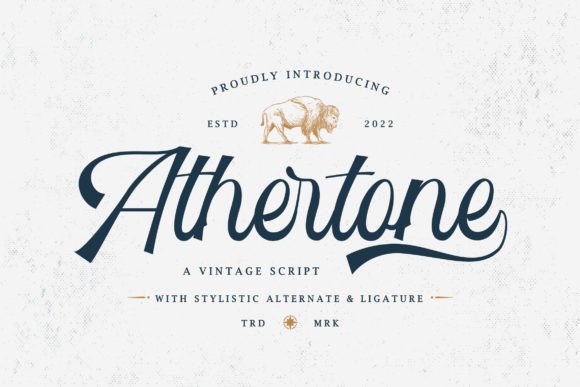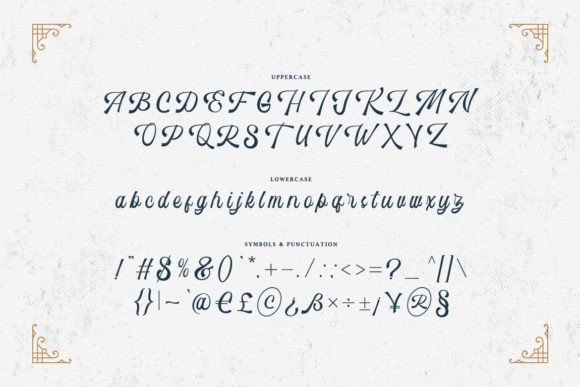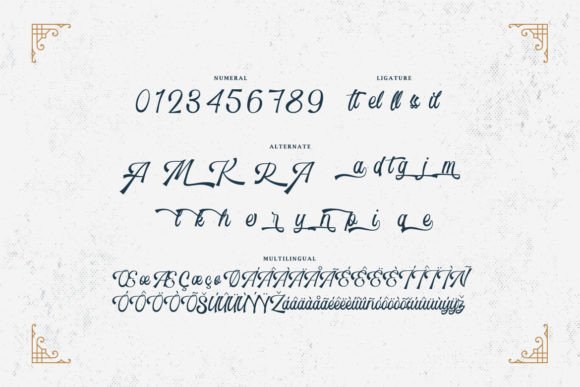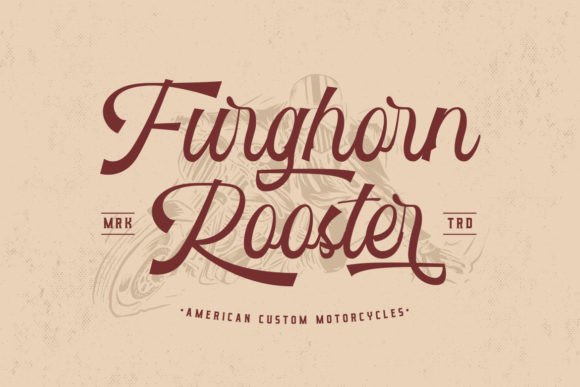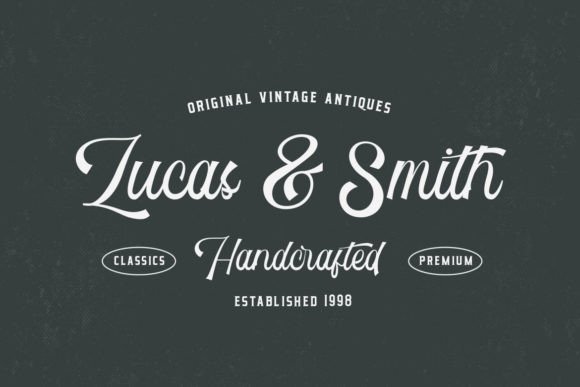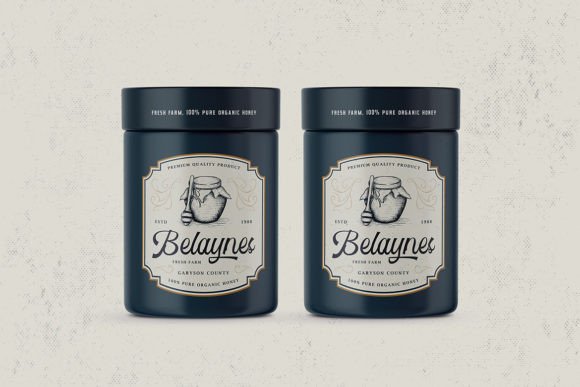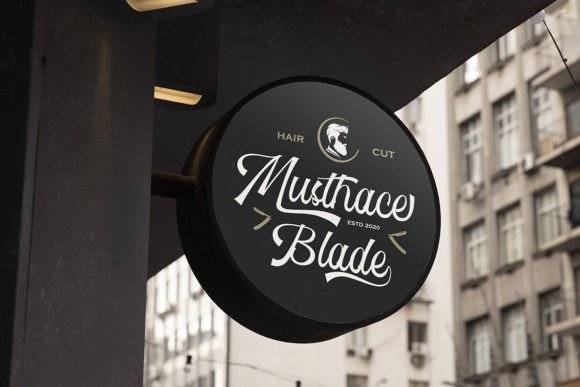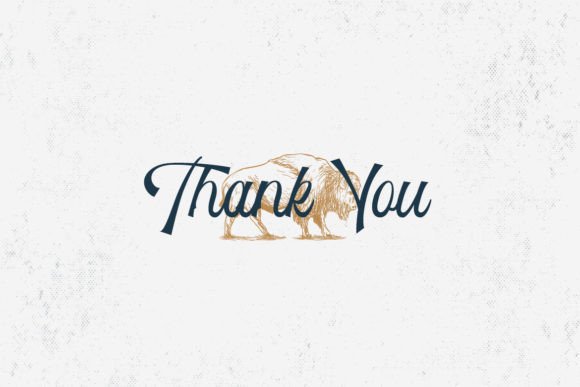
Athertone Font
About Athertone Font
“Athertone” is a unique vintage script font that captures a distinctively versatile style. Crafted with a touch of nostalgia, this font is well-suited for a variety of applications, including wedding invitations, retro stationary art, eye-catching social media posts, labels, logos, web designs, quotes, posters, workshops, and more.
The versatility of “Athertone” allows it to adapt seamlessly to different design contexts, making it a valuable asset for a wide range of projects. Whether you’re aiming for a retro aesthetic, creating elegant wedding materials, or designing eye-catching social media content, this font adds a unique charm to your creations.
The vintage script style of “Athertone” imparts a sense of authenticity and character to your text, contributing to the overall aesthetic appeal. Its usage can elevate your designs, adding a touch of nostalgia and sophistication.
From labels to logos and posters to web designs, “Athertone” stands out as a font that brings a unique personality to your projects. Its distinctively versatile style makes it a go-to choice for designers seeking a typeface that can seamlessly blend into a variety of creative endeavors.
In summary, “Athertone” is a unique vintage script font that offers incredible versatility, making it suitable for an array of design projects. Its timeless style and distinct charm make it a valuable tool for designers looking to create visually appealing and authentic content.